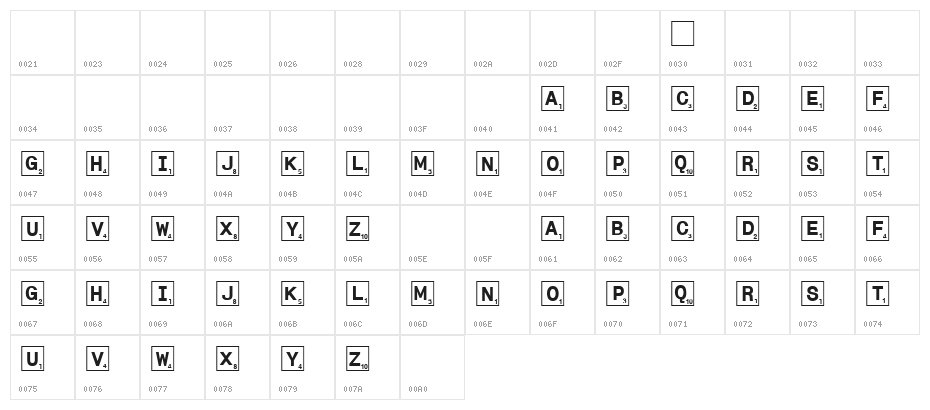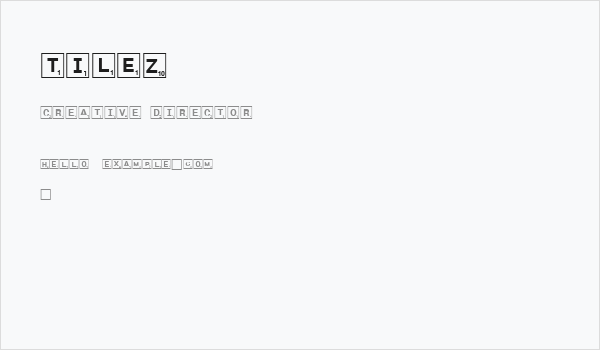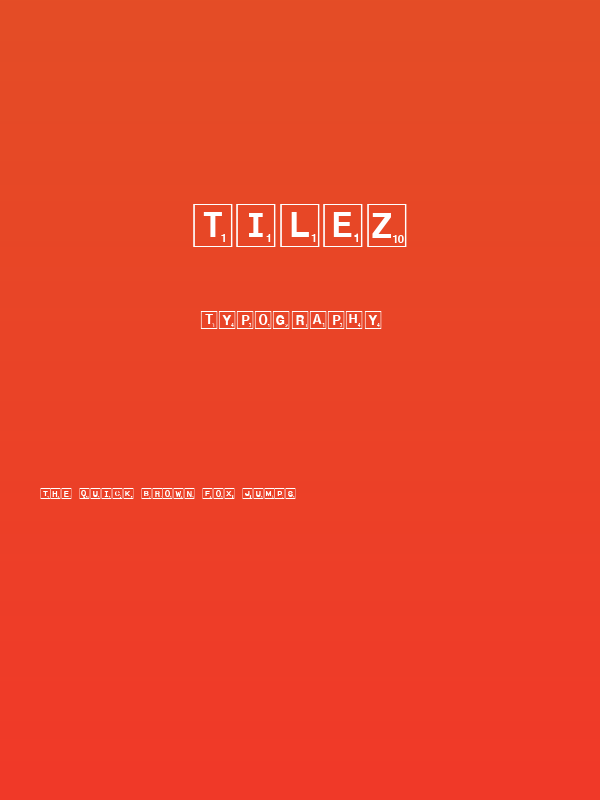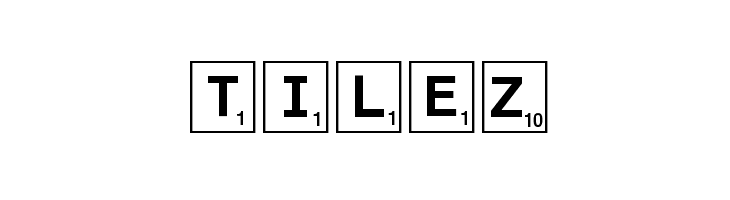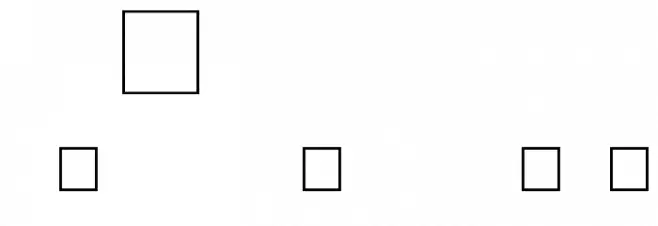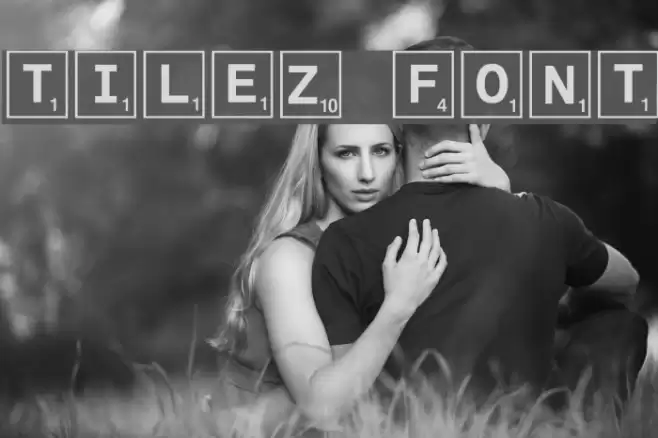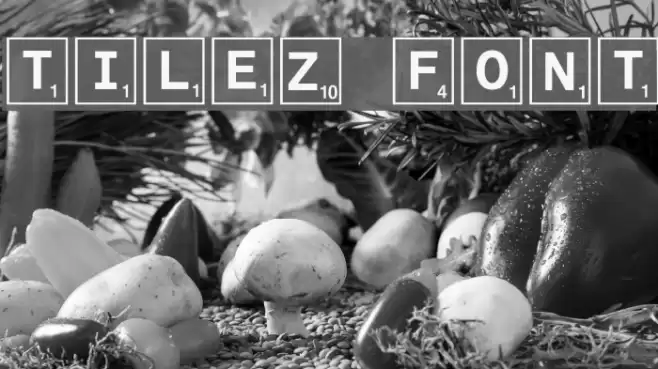
Tilez Font
Tilez Description
This font is designed to resemble classic board game tiles, each letter enclosed in a square with a bold, uppercase style. The characters are evenly spaced within their boxes, creating a uniform and structured appearance. The numbers in the corners add a playful element, reminiscent of scoring systems in word games. The font is highly legible and straightforward, with no additional embellishments or serifs, making it ideal for projects that require a clear and direct visual impact. The use of bold lines and consistent sizing across all characters ensures that it stands out in any design.
| Overall Style | Playful, Structured |
| Use Case | Logos, Game design, Educational materials |
| Proposed Projects | Ideal for game design, educational materials, playful branding, and any project requiring a fun, structured aesthetic. |